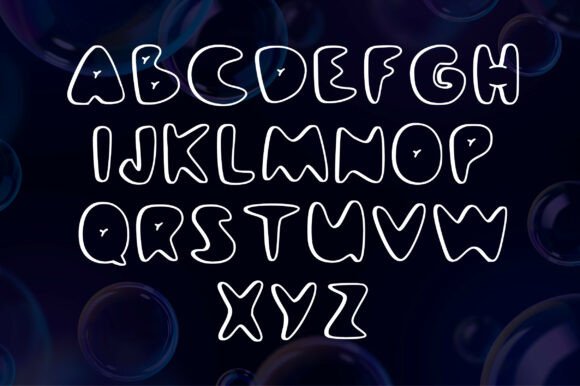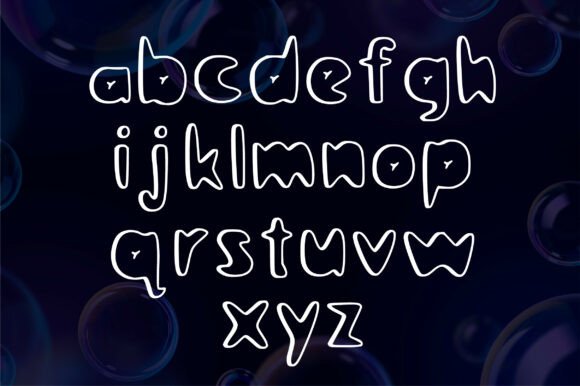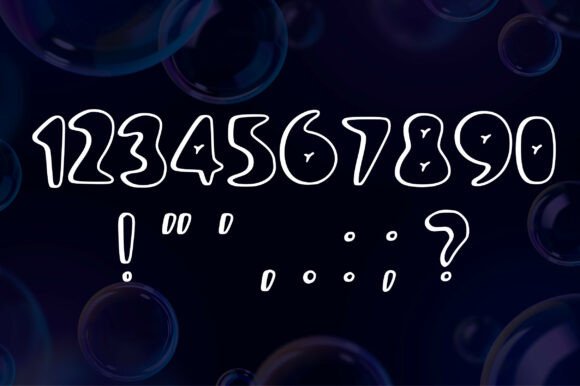
When Creativity Pops: The Joy of the Bubble Font
Who hasn’t had that magical moment when a font choice sparks a whole new idea for a design project? For us, it was the day we discovered the Bubble Font – a font that’s as playful as it is professional. With its bold, bouncy letterforms and whimsical charm, it’s no wonder this font has captured the hearts of designers around the world.
The Bubble Font is a perfect blend of fun and functionality, making it ideal for kids’ designs, party invitations, posters, educational materials, and digital art. Its quirky, exaggerated curves and squishy outlines give it a super soft, friendly feel that’s hard to resist. Whether you’re creating bubble-themed graphics, toy packaging, or eye-catching headlines for children’s books or YouTube channels, the Bubble Font delivers a visually engaging and imaginative experience that’s sure to delight both kids and adults alike.
- Unique Characteristics: Bubble Font features a distinctive, rounded design with a playful and whimsical feel, making it suitable for creative and informal applications.
Bubble Font Review
I recently had the chance to work with Bubble Font, and I’m excited to share my honest review with you. ✨ One thing that really stood out to me was the font’s playful and whimsical feel. It’s perfect for creating eye-catching headings and titles that add a touch of personality to your designs.
- Unique and playful style that adds a touch of whimsy to your designs
- Great for creating attention-grabbing headings and titles
However, I did encounter a few limitations when working with Bubble Font. ⚠️ The font can be a bit difficult to read at smaller sizes, and it may not be the best choice for body text. Additionally, some of the characters may not be fully compatible with certain design software, which can be frustrating.
Overall, I think Bubble Font is a great choice for designers who want to add a touch of fun and personality to their designs. While it may not be suitable for all types of projects, it’s a great option for headings, titles, and other design elements where you want to make a statement.
The Bubble Font is commonly used for:
– Creating playful and eye-catching graphics for social media posts.
– Designing educational materials and presentations for children.
– Adding a touch of whimsy to event invitations and wedding decorations.